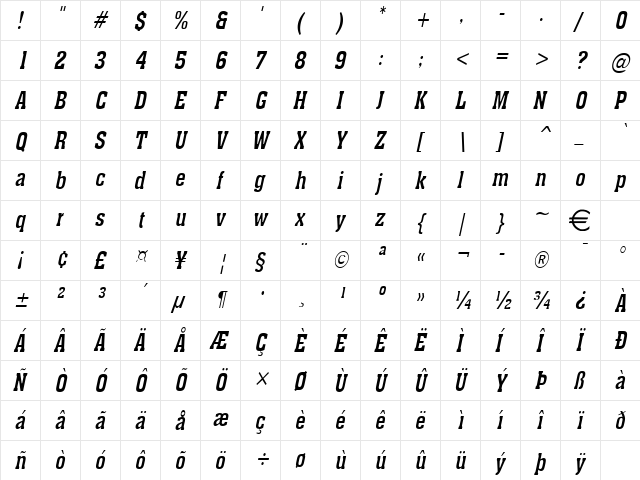
AcheCondensed Italic
Design Context for AcheCondensed Typeface
AcheCondensed offers clean, dependable letterforms without strong stylistic allegiance, making it a practical choice for designers who need flexibility. The slanted form adds forward momentum and visual energy. Its narrow stance lets it pack a punch even in space-constrained designs.
Pro Tip: Use AcheCondensed for emphasis, pull quotes, and subheadings where its slanted energy can add rhythm to the layout.